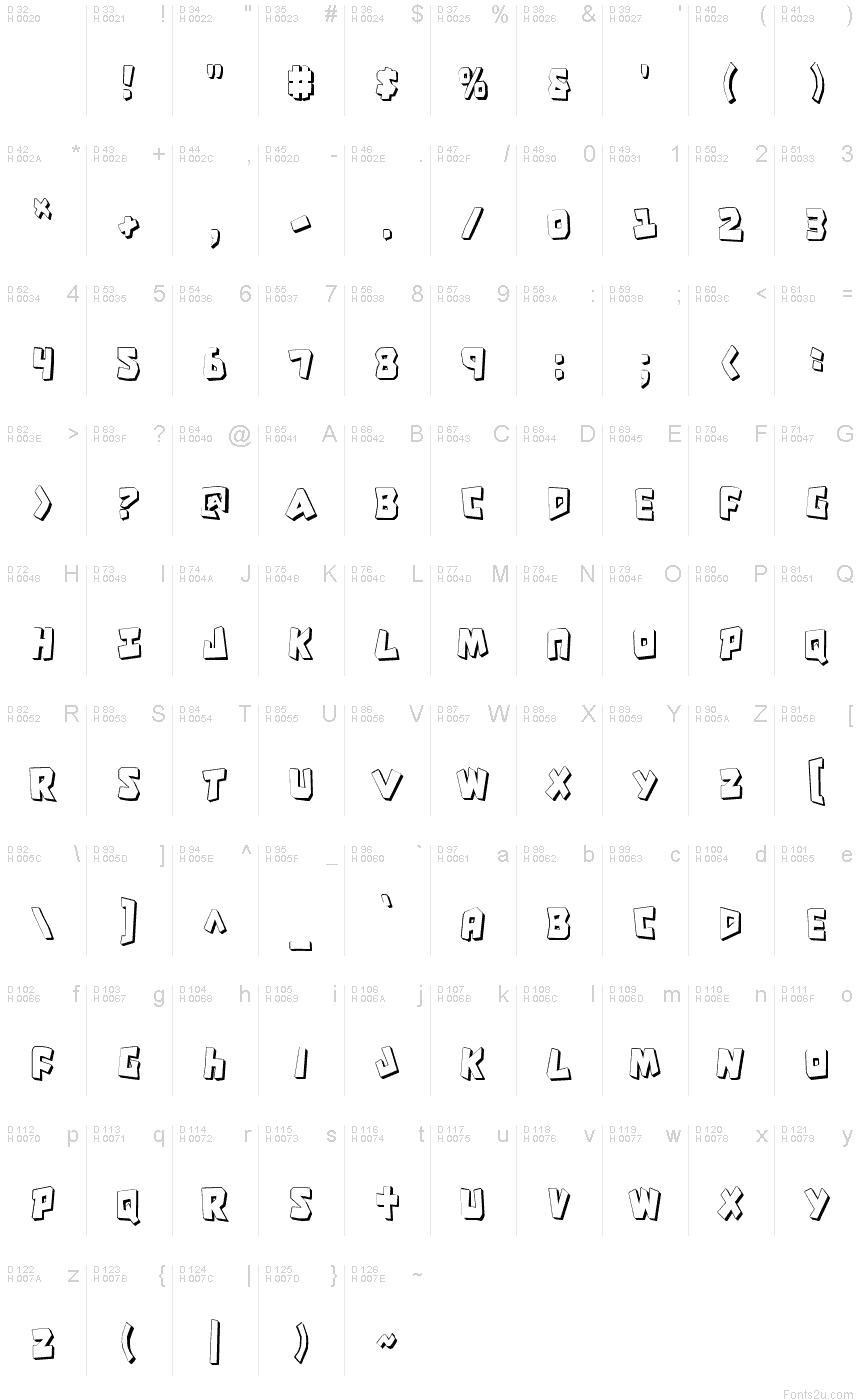
Cro-Magnum Condensed Shadow
Cro-Magnum Condensed Shadow font by Dan Zadorozny of Iconian Fonts is a free comic shadow display typeface with a loud, hand-drawn punch. Its chunky, slightly jagged letterforms look like they’ve been hacked out of stone, while the bold black outline and tight inner white space create a strong, graffiti-meets-prehistoric vibe. The condensed width keeps words compact and impactful, so you can shout a message without hogging the whole page or screen.
Using Cro-Magnum Condensed Shadow, headlines snap into place with a rugged, cartoon energy that’s hard to miss. This free font shines on comic covers, game titles, kids’ event posters, toy packaging, YouTube thumbnails, and playful branding where you want big personality and easy readability. Pair it with a simple, clean sans-serif for body text, and let Cro-Magnum handle the noisy, eye-grabbing bits at large sizes.